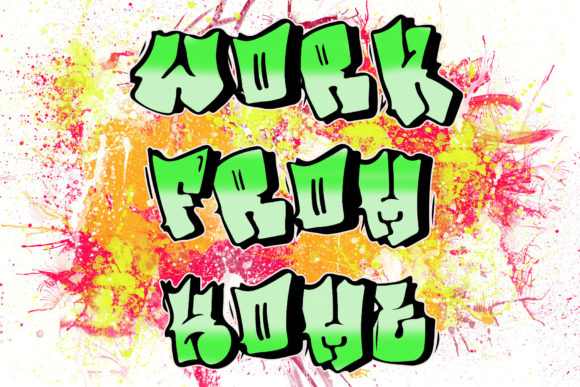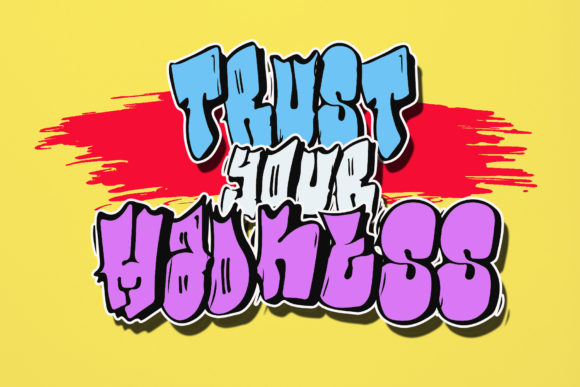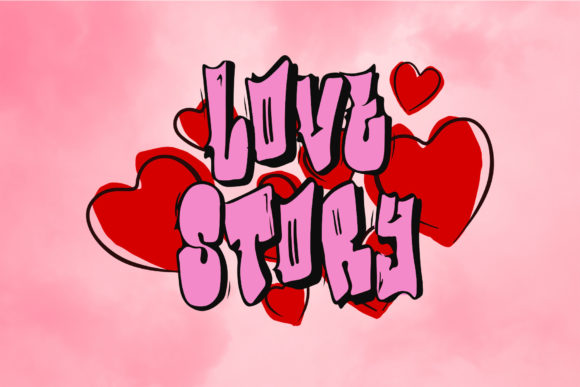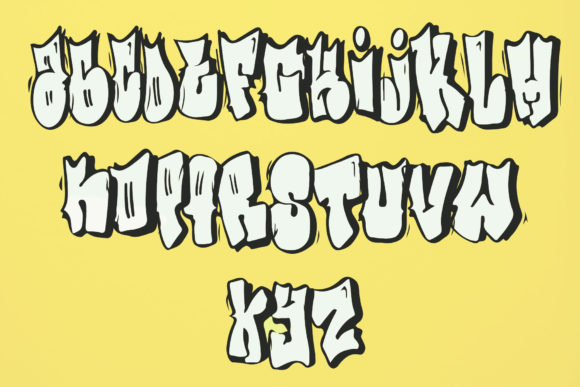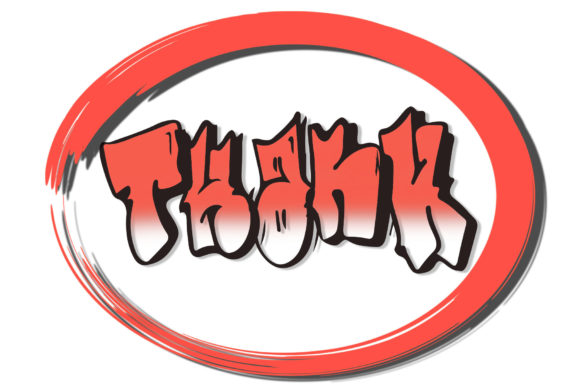
Bintang Font: Unleash Your Creativity with this Graffiti-Styled Display Font
Are you a designer or crafter looking for a font that can add a touch of street art vibe to your designs? Look no further than Bintang Font! This awesome, graffiti-styled display font is perfect for creating eye-catching designs that demand attention. In this article, we’ll take a closer look at Bintang Font, its features, and how you can use it to take your designs to the next level.
What is Bintang Font?
Bintang Font is a unique, graffiti-styled display font that is inspired by the urban street art scene. Its bold, edgy design makes it perfect for creating designs that require a bit of attitude and swag. Whether you’re designing a logo, advertisement, or t-shirt, Bintang Font is sure to make your design stand out from the crowd.
Key Features of Bintang Font
- Graffiti-styled design: Bintang Font features a bold, graffiti-styled design that is perfect for creating street art-inspired designs.
- Display font: This font is specifically designed as a display font, making it perfect for headlines, titles, and other attention-grabbing elements.
- Street art vibe: Bintang Font has a distinct street art vibe that is sure to add a touch of urban flair to your designs.
- Versatile: This font is suitable for a wide range of designs, including t-shirts, sportswear, logos, advertisements, clothing, and more.
How to Use Bintang Font in Your Designs
Bintang Font is incredibly easy to use and can be incorporated into a wide range of designs. Here are a few ideas to get you started:
- T-shirts and apparel: Use Bintang Font to create eye-catching t-shirt designs that are sure to turn heads.
- Logos and branding: Bintang Font is perfect for creating bold, attention-grabbing logos that will help your brand stand out.
- Advertisements: Use Bintang Font to create bold, eye-catching advertisements that demand attention.
- Clothing and accessories: Bintang Font is perfect for designing clothing and accessories, such as hats, bags, and more.
Tips for Using Bintang Font Effectively
Here are a few tips for using Bintang Font effectively in your designs:
- Use it boldly: Bintang Font is a bold font, so don’t be afraid to use it boldly in your designs.
- Experiment with colors: Bintang Font looks great in a wide range of colors, so don’t be afraid to experiment and find the perfect color for your design.
- Pair it with other fonts: Bintang Font can be paired with other fonts to create a unique and interesting design.
Bintang Font is an awesome, graffiti-styled display font that is perfect for designers and crafters looking to add a touch of street art vibe to their designs. With its bold, edgy design and versatile nature, Bintang Font is sure to become a go-to font in your design arsenal. So why wait? Download Bintang Font today and start creating eye-catching designs that demand attention!
- What is Bintang Font?: Bintang Font is a graffiti-styled display font that is inspired by the urban street art scene.